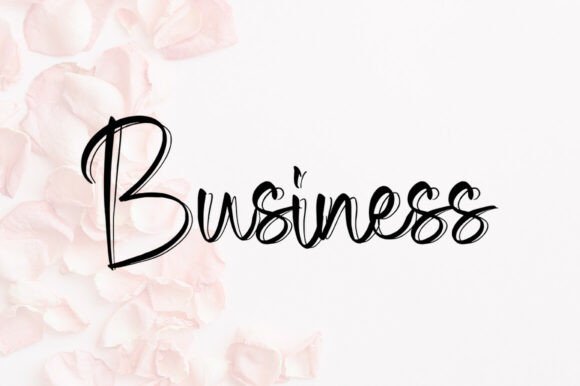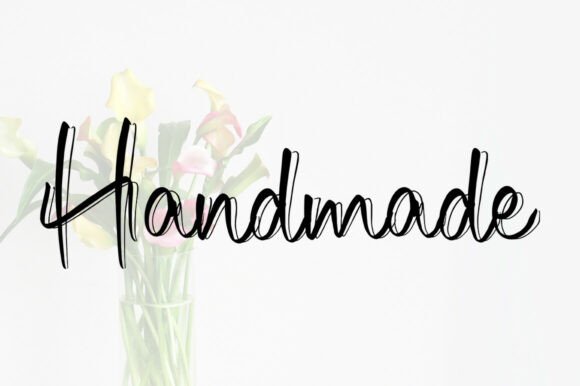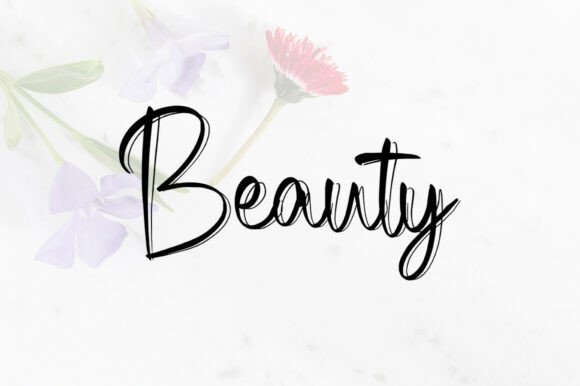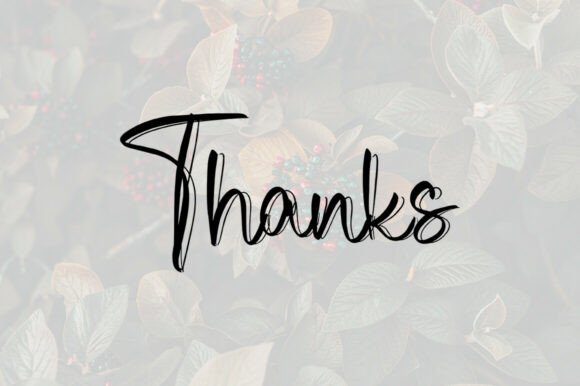
Introducing Elephant Font: The Perfect Handwritten Font for Your Creative Projects
Are you a designer or crafter looking for a unique and elegant font to elevate your creative projects? Look no further than Elephant Font, a romantic and sweet handwritten font that is sure to capture the hearts of your audience. With its casual yet sophisticated touch, Elephant Font is perfect for a wide range of applications, from logos and wedding invitations to headings, T-shirts, and more.
What Makes Elephant Font So Special?
Elephant Font is a beautifully crafted handwritten font that features characters that dance along the baseline, giving it a playful and whimsical feel. The font’s casual elegance makes it perfect for designers and crafters who want to add a touch of personality to their work. Whether you’re creating a logo, wedding invitation, or social media graphic, Elephant Font is sure to make your project stand out.
Uses for Elephant Font
One of the best things about Elephant Font is its versatility. This font can be used for a wide range of purposes, including:
Why Choose Elephant Font?
- Unique and Elegant: Elephant Font is a one-of-a-kind handwritten font that adds a touch of elegance and sophistication to any project.
- Easy to Read: Despite its elegant and cursive nature, Elephant Font is easy to read and understand, making it perfect for body text and headings.
Tips for Using Elephant Font
- Use for Headings: Elephant Font is perfect for headings and titles, but it can also be used for body text and other applications.
| Font Name | Elephant Font |
| Author | Daily Design |
In conclusion, Elephant Font is a beautiful and elegant handwritten font that is perfect for designers and crafters looking to add a touch of personality to their creative projects. With its casual yet sophisticated touch, Elephant Font is versatile and can be used for a wide range of purposes. Whether you’re creating a logo, wedding invitation, or social media graphic, Elephant Font is sure to make your project stand out.